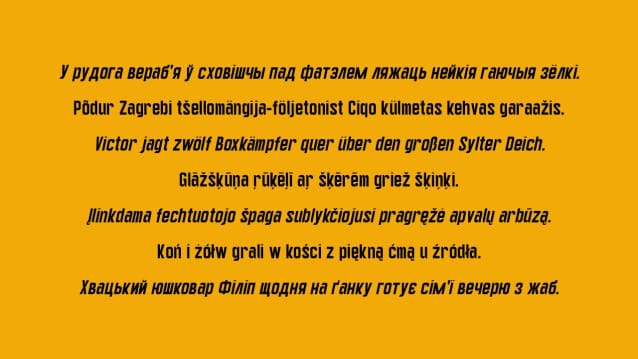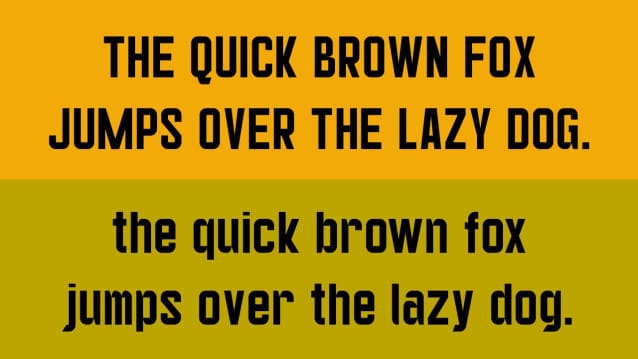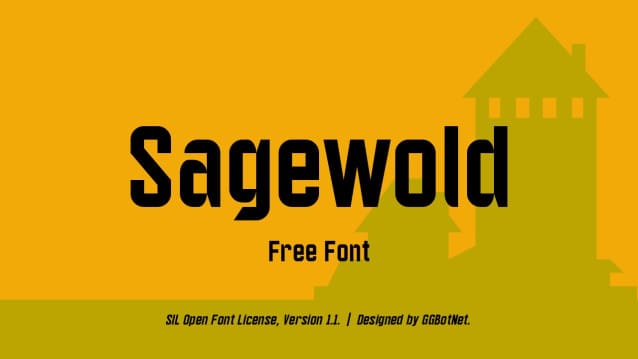
Sagewold Font
Sagewold Font a bold statement with our latest sans-serif font. With its clean lines and modern appeal, this font is sure to turn heads and leave a lasting impression. Perfect for headlines, logos, and any design that demands attention. It is both functional and stylish, making it a versatile choice for a wide range of design projects.